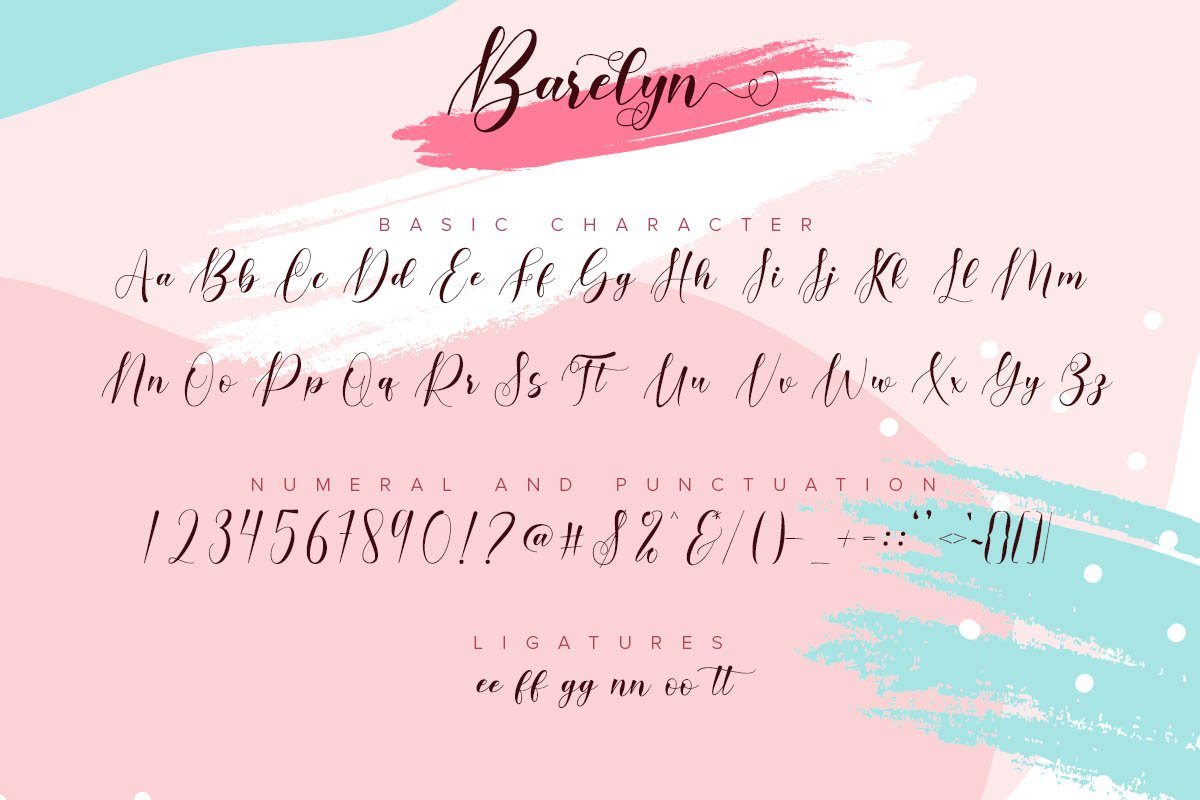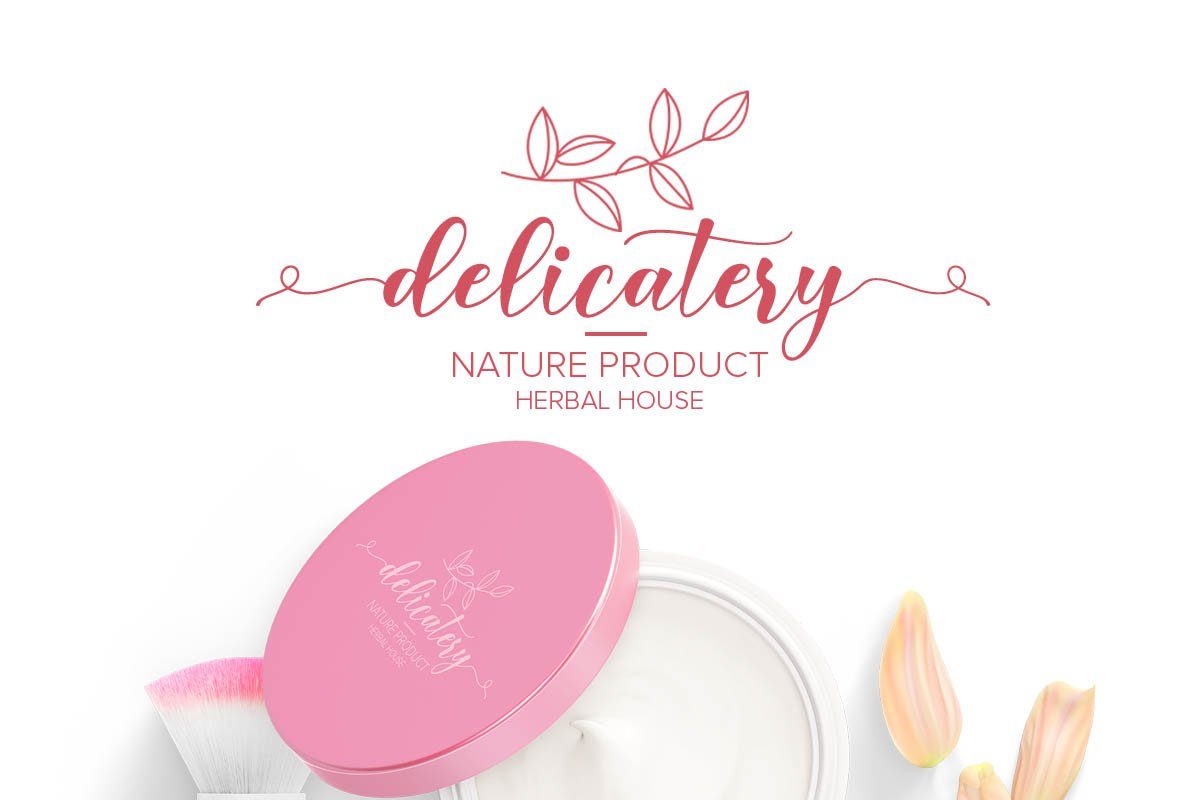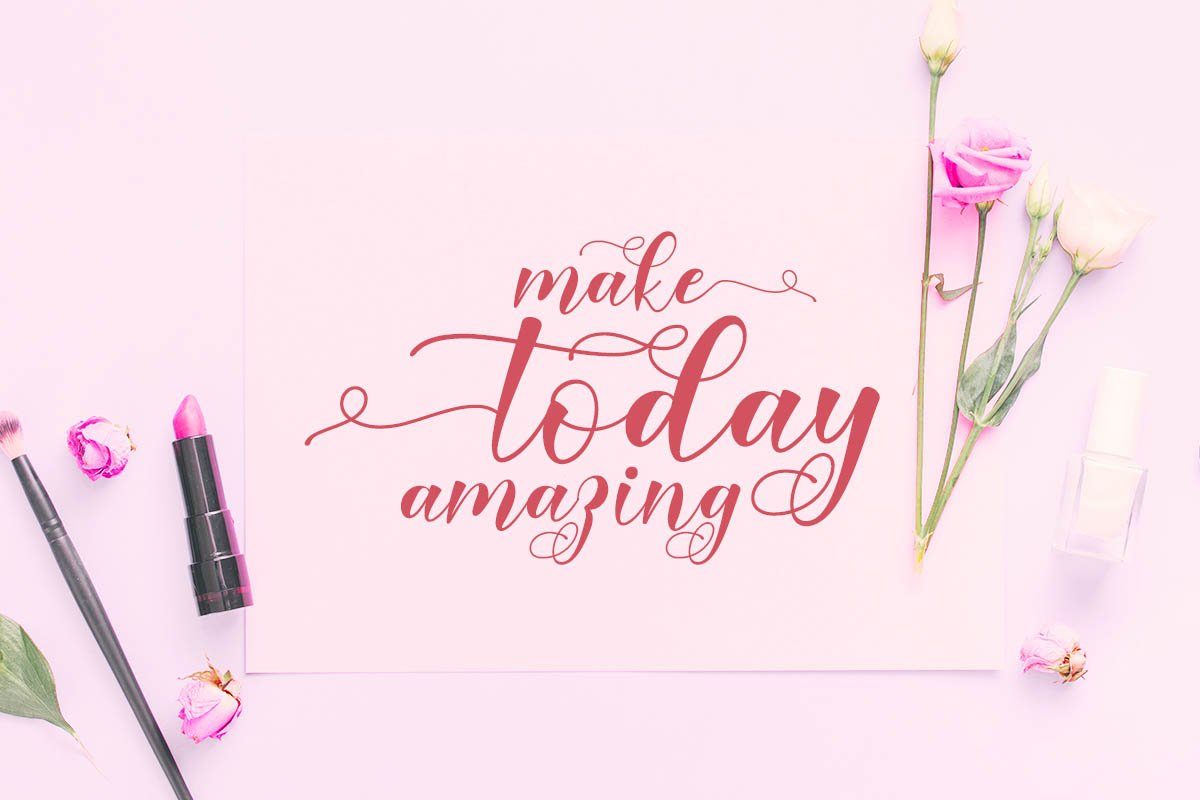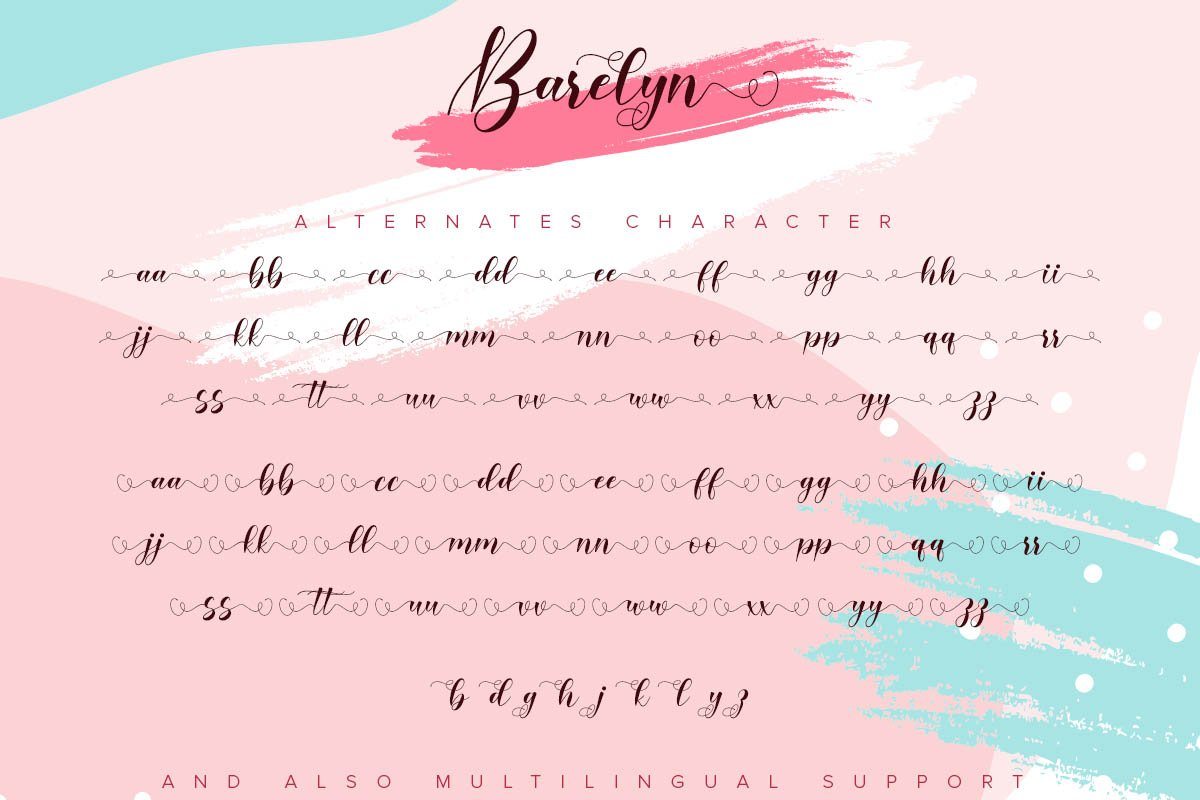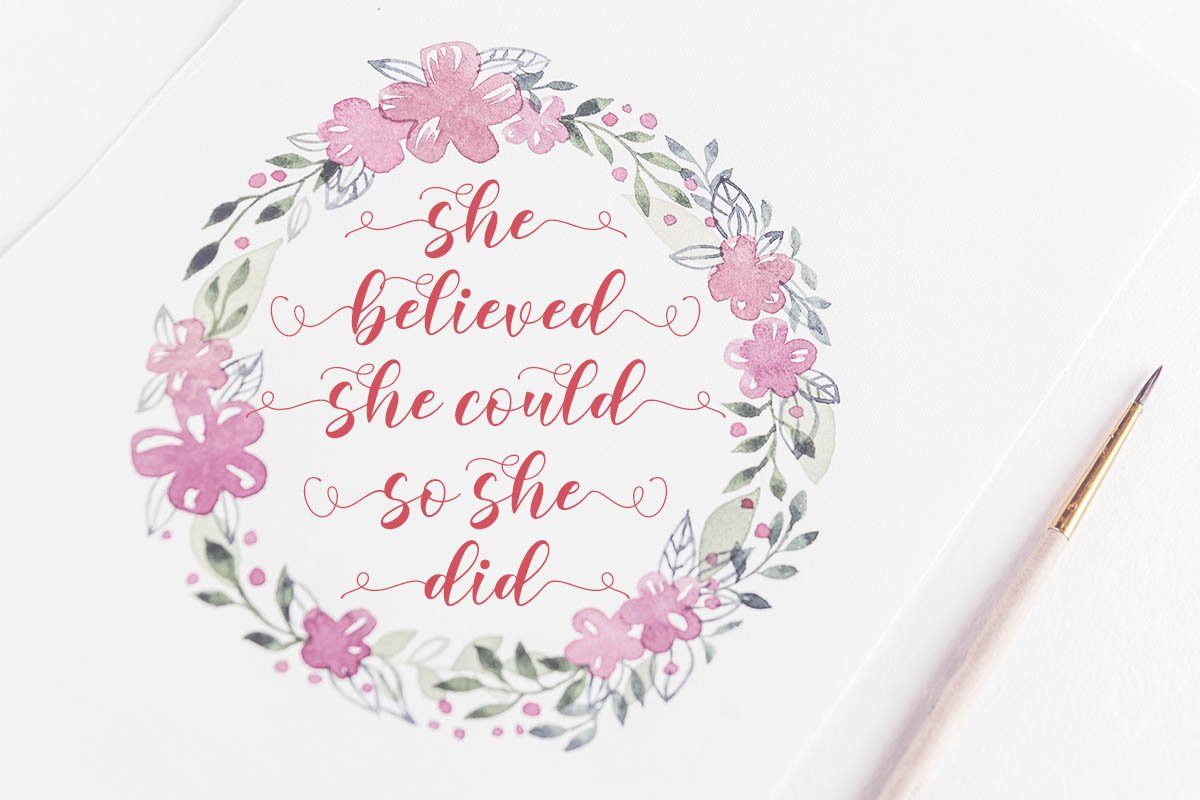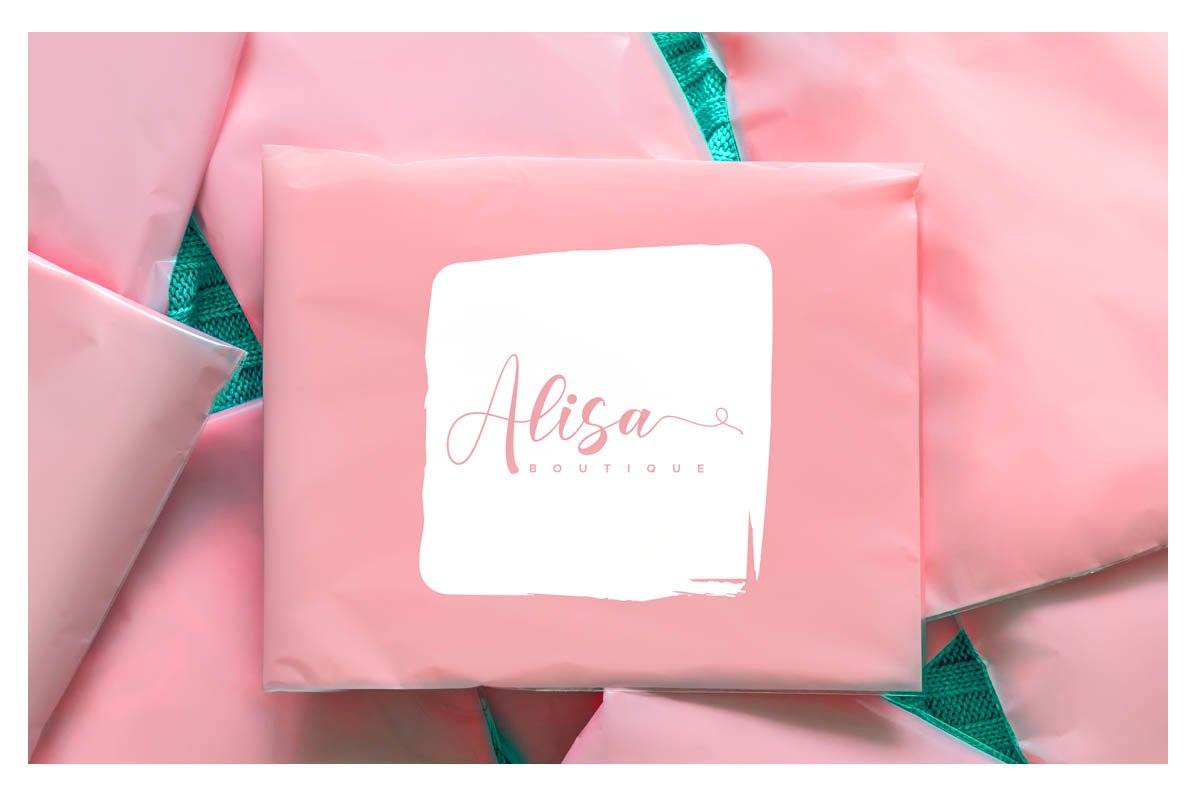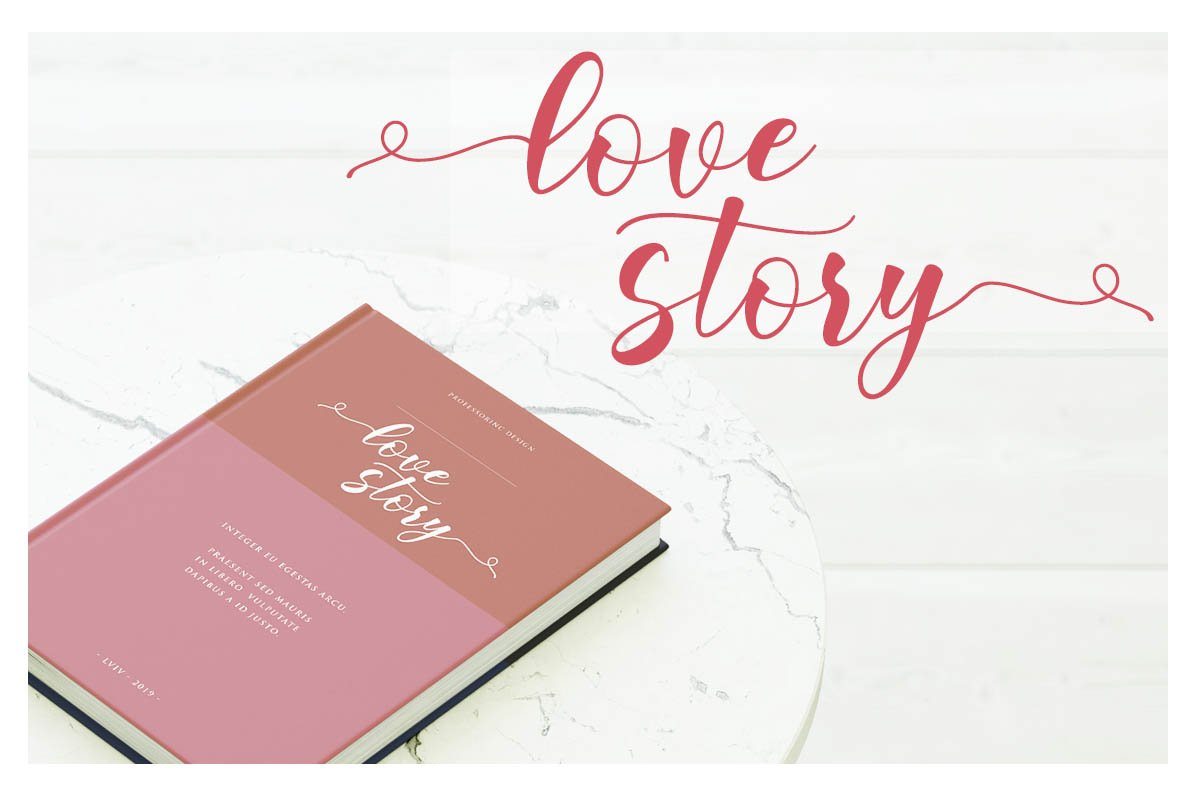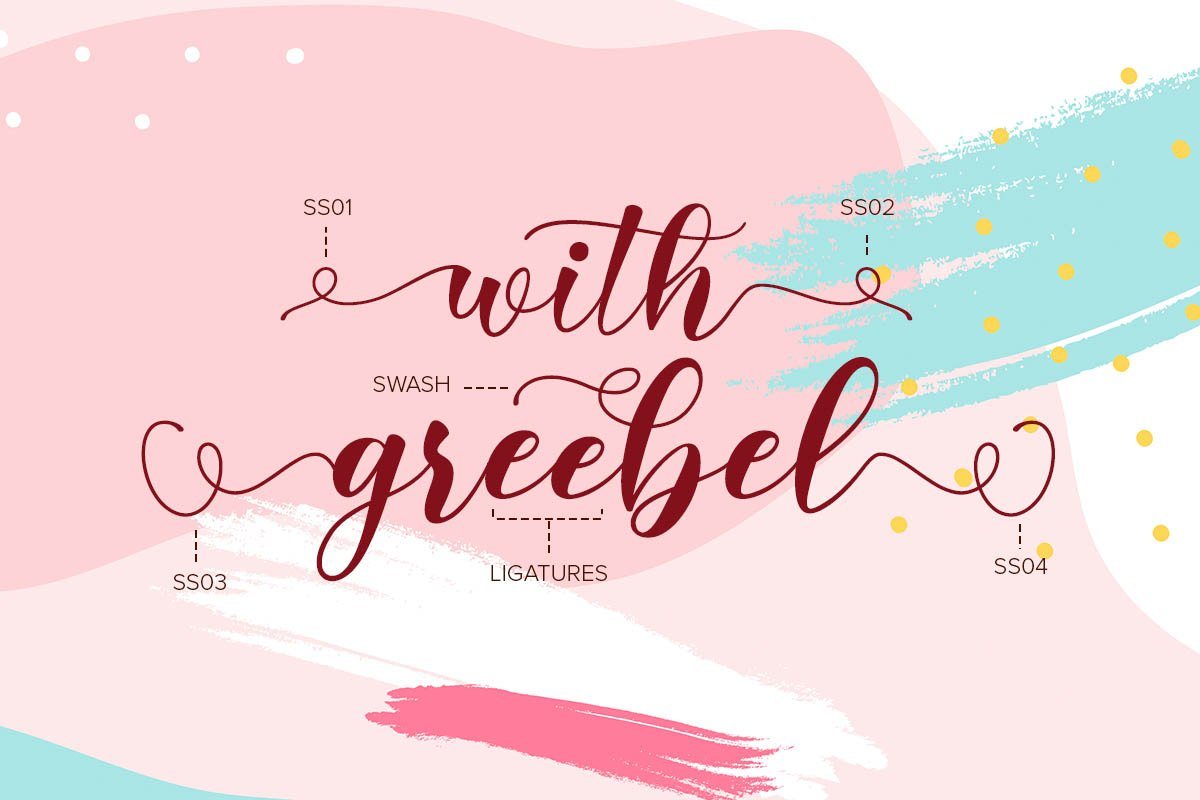
Barelyn Script
About Barelyn Script
Say hello to Barelyn Script. Barelyn is a beautiful and modern script. It brings a beautiful and modern typeface that best used for weddings, branding, logotype, and quotes.: Includes : – Barelyn (OTF,TTF) Features : Ligatures Beautiful Alternates + Swashes PUA Encoded Multilingual Support Numerals and Punctuation Beginning Swash and  Ending Swashes (a-z) Easy Uses Thank You for visiting our shop Have a nice day !! Yumna Type-